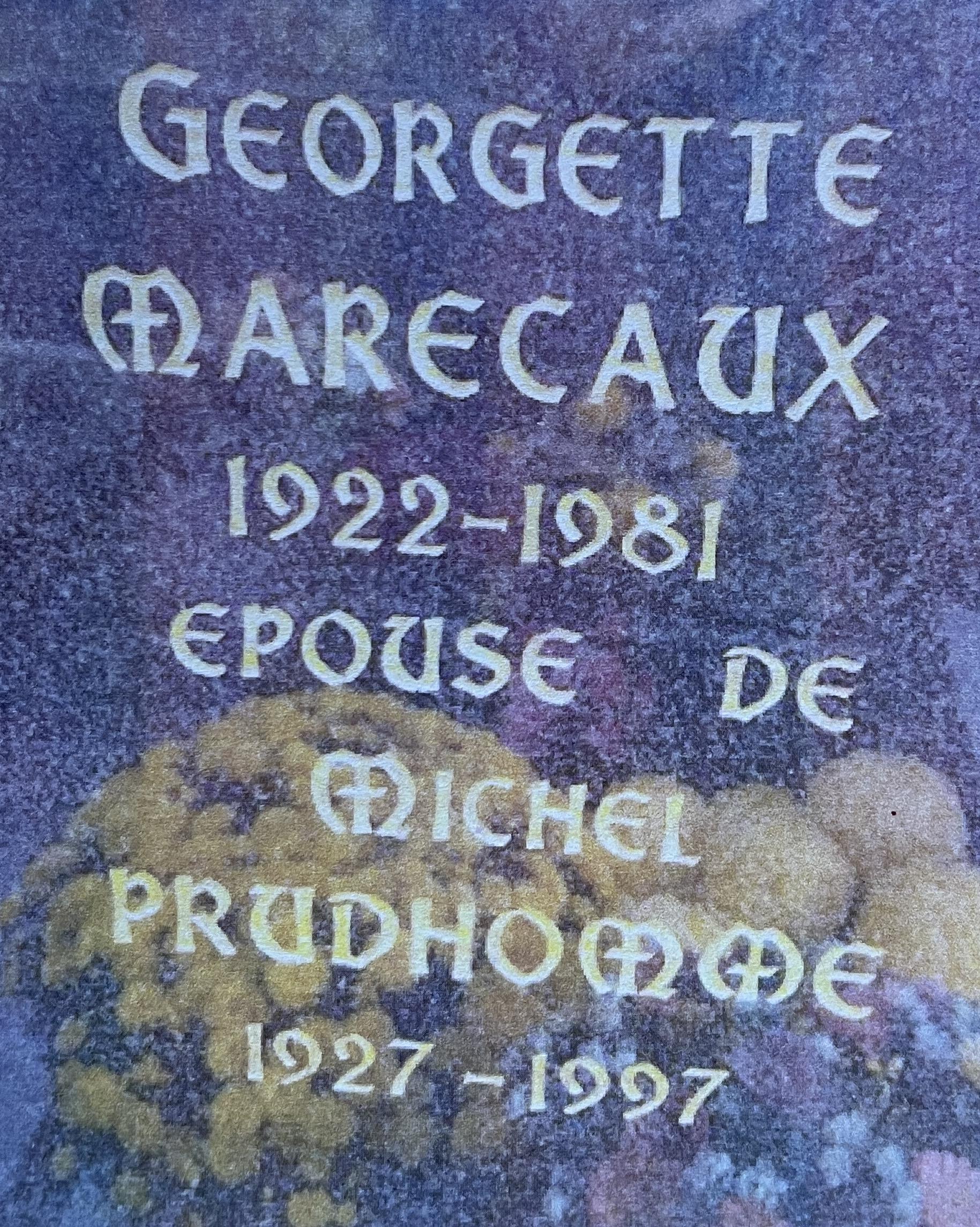
Celtic Font ID
Hello Nicolas, this is believed to be an old plastic stencil press alphabet, likely originally created by a company in Europe. A Canadian company named PMD created a version in the 1980s, but it did not contain any numbers. They named their version Victorian #2. Unfortunately, I am not aware of any digital versions of this alphabet, though I would love to know more information about it if you find anything—or see more images if you come across more of this in the cemetery.